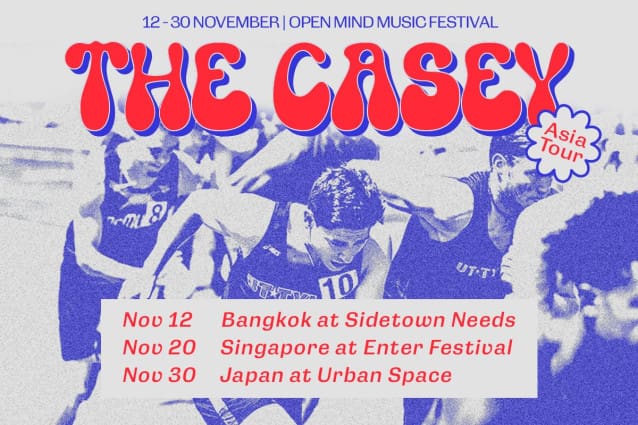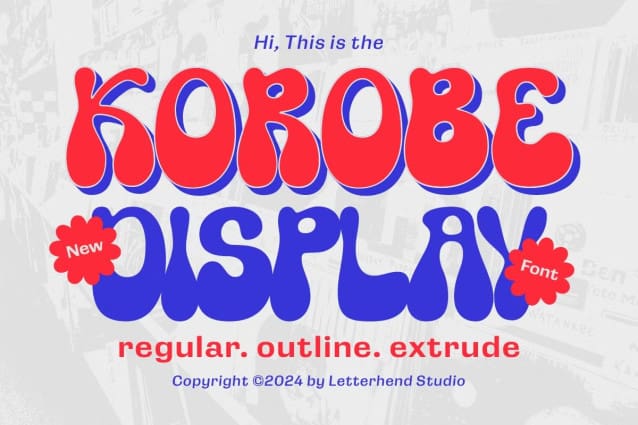
Korobe Display Font
Korobe Display Font add a funky pop feels to your designs! This fun and whimsical font is like a playful friend. Its rounded, bubbly letters give it a friendly and approachable feel, while its cartoon-like appearance adds a touch of funky and playfulness. Use Korobe to create logos, posters, and other designs that need a dash of personality and fun.